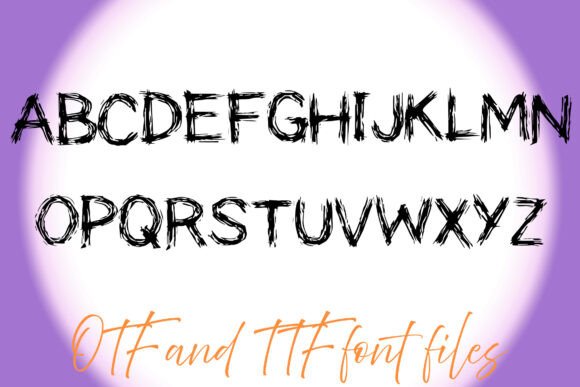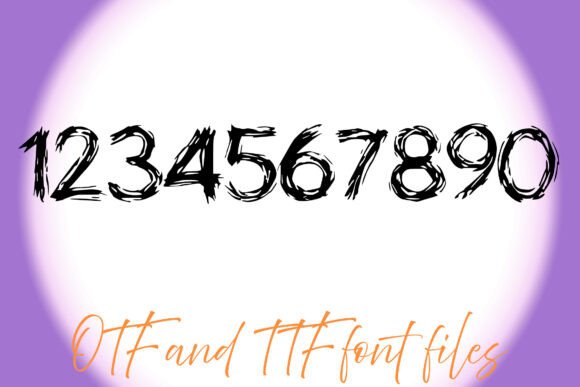
Unleash the Emotional Intensity of Your Designs with Anxious Font
In the world of typography, fonts play a crucial role in conveying emotions and setting the tone for designs. For creatives looking to add a raw, expressive touch to their projects, the Anxious Font is an exceptional choice. This display font is meticulously crafted to capture intensity and movement through its hand-sketched, chaotic strokes, making it perfect for designs that demand an edge.
The Essence of Anxious Font
Anxious Font is not just a typeface; it’s an experience. Its hand-sketched strokes exude a sense of urgency and emotion, making it an ideal choice for projects that require a deep, emotional connection with the audience. Whether you’re working on horror-themed designs, emotional graphics, zines, or expressive typography, Anxious Font brings a level of drama and intensity that’s hard to match.
Key Features of Anxious Font
- Raw and Expressive: With its chaotic, hand-sketched strokes, Anxious Font embodies raw emotion and intensity.
- Versatile: Suitable for a variety of projects including horror-themed designs, emotional graphics, zines, and expressive typography.
- Distressed and Impactful: Offers a distressed, impactful type style that’s sure to grab attention.
Design Applications for Anxious Font
The versatility of Anxious Font makes it a valuable addition to any designer’s toolkit. Here are some of the top applications where this font truly shines:
- Horror-Themed Designs: The chaotic strokes of Anxious Font are perfect for creating spine-tingling horror-themed designs that leave a lasting impression.
- Emotional Graphics: For projects that require conveying deep emotions, Anxious Font offers a typographic solution that’s both impactful and expressive.
- Zines and Art Publications: The raw, expressive nature of this font makes it a great fit for zines and art publications looking for a unique typographic voice.
- Expressive Typography: Use Anxious Font to create stunning expressive typography that showcases your creativity and adds a personal touch to your designs.
Why Choose Anxious Font?
In a sea of typefaces, Anxious Font stands out for its unique character and emotional depth. Here are a few reasons why designers and crafters are gravitating towards this font:
- Unique Aesthetic: Offers a distinctive, hand-sketched aesthetic that’s hard to replicate with standard fonts.
- Emotional Connection: Helps create an emotional connection with the audience, making your designs more impactful.
- High Versatility: Can be used across a range of projects, from digital designs to print materials.
Tips for Using Anxious Font Effectively
To get the most out of Anxious Font, consider the following tips:
- Pair with Simple Fonts: For maximum impact, pair Anxious Font with simpler fonts to create contrast and hierarchy in your designs.
- Experiment with Colors: Don’t be afraid to experiment with bold and contrasting colors to enhance the emotional impact of your typography.
- Use Sparingly: Given its intense nature, use Anxious Font sparingly to highlight key messages or create focal points in your designs.
Anxious Font is more than just a typeface; it’s a tool for designers and crafters to express emotion, create intensity, and add a unique edge to their projects. With its raw, expressive strokes and versatile applications, it’s an excellent choice for anyone looking to elevate their designs. Whether you’re working on horror-themed projects, emotional graphics, or expressive typography, Anxious Font is sure to bring your creative vision to life.